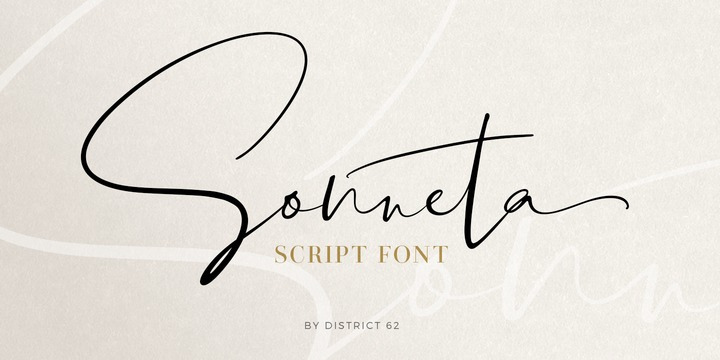
Sonneta Font
Sonneta Font is perfect for elegant poetry publications, literary magazine layouts, sophisticated book covers, classical music branding, refined wedding invitations, luxury brand identity, premium packaging design, cultural event materials, upscale restaurant menus, fine art exhibition signage, academic institution communications, and timeless editorial compositions.
Sonneta Font is exciting because it embodies the lyrical beauty and rhythmic elegance of classical poetry with gracefully refined letterforms that flow like verses across the page, creating sophisticated typographic compositions that celebrate literary artistry and the timeless power of beautifully crafted language and expression.
The Sonneta Font family includes poetic variations: Regular, Bold, Light, Italic, Condensed, and Decorative capitals, providing designers with a complete literary typography system to create eloquent compositions that honor the artistic tradition of fine literature and classical communication.
Compose with literary elegance using Sonneta Font Free Download. This sophisticated typeface brings the refined beauty and poetic grace of classical literature to contemporary design projects. Whether you're creating publishing house identities, designing cultural event materials, or developing literary marketing campaigns, Sonneta Font delivers unmatched sophistication and artistic credibility.
The font's meticulously crafted letterforms reflect the balanced beauty and rhythmic flow of classical verse, with elegant proportions and refined details that speak to centuries of literary tradition. Each character demonstrates the perfect harmony between readability and artistic expression that defines excellent typography for cultural and educational applications.
Sonneta Font excels in creating distinguished brand experiences for businesses in publishing, education, and cultural sectors. Its literary presence transforms ordinary communications into eloquent statements that resonate with audiences who appreciate intellectual depth, artistic excellence, and the enduring value of classical education and culture.
Professional designers treasure how Sonneta Font maintains its scholarly character while providing exceptional versatility across diverse literary and cultural applications. The comprehensive style range ensures optimal performance from intimate poetry chapbooks to grand academic ceremonies, maintaining consistent elegance and intellectual appeal.
This remarkable typeface brings instant credibility to literary ventures and culturally focused organizations. From university presses to poetry societies, Sonneta Font creates lasting impressions that communicate wisdom, artistic excellence, and the profound beauty that emerges when language is elevated to its highest form.